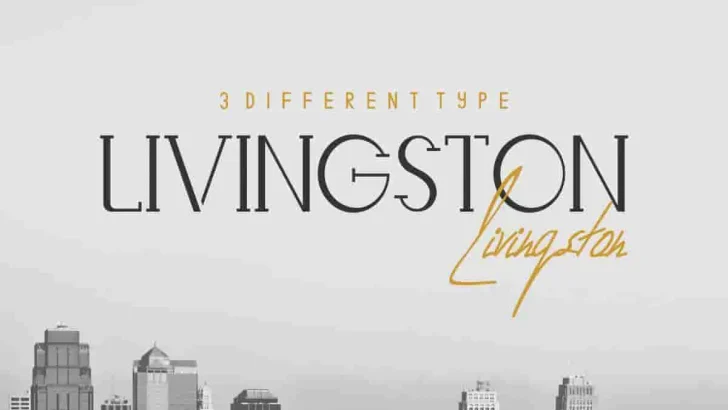
Livingston Script Handwriting Font Trio
Livingston ! It’s TRIO!!!! These family font comes with: Serif, Sans and Script. ALL IN ONE PACK From EdricStudio